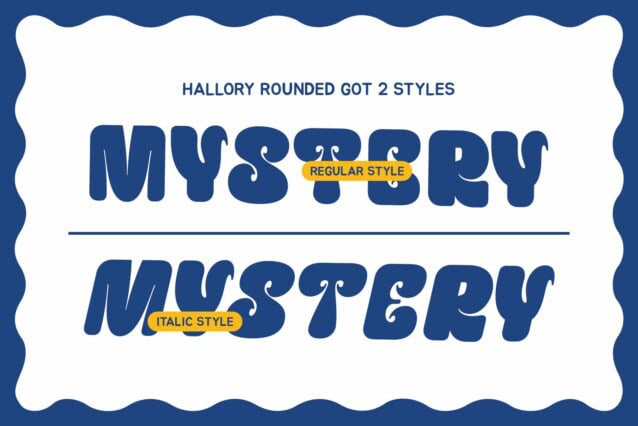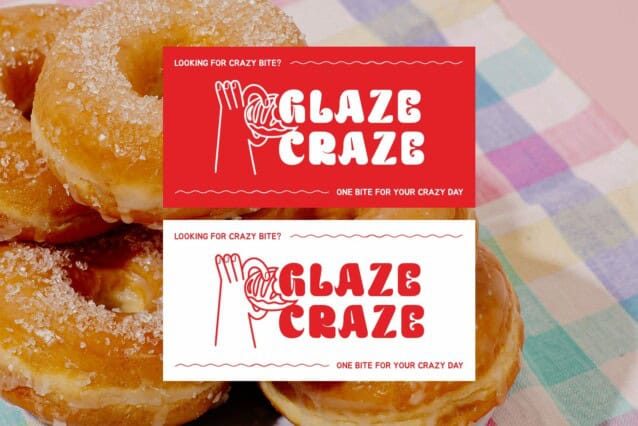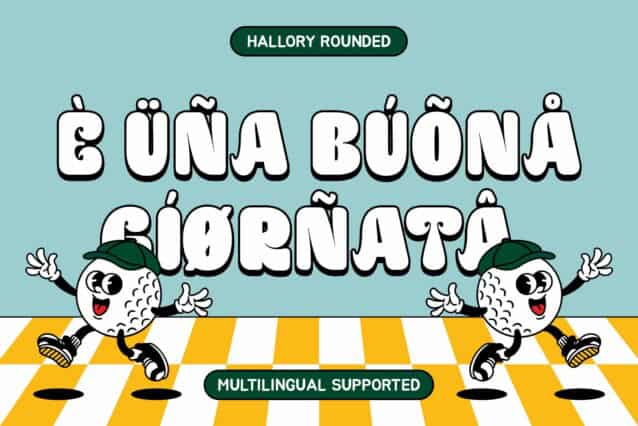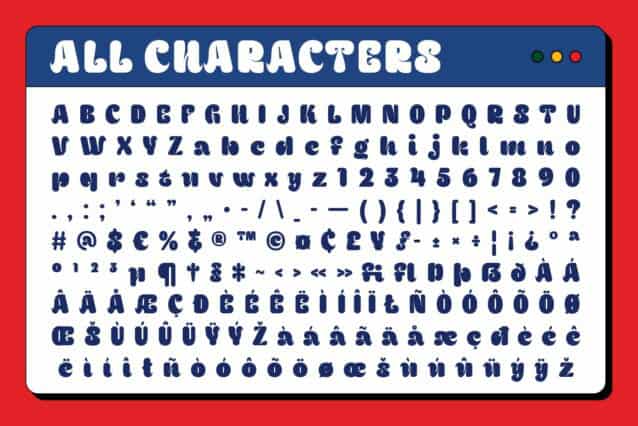
Hallory Rounded Font
Hallory Rounded Font is a bold display font with a smooth, rounded shape, designed to bring a friendly and inviting feel to any design. With its soft curves and full letterforms, this font creates a charming and approachable aesthetic, making it ideal for projects that require a lighthearted and engaging visual presence.